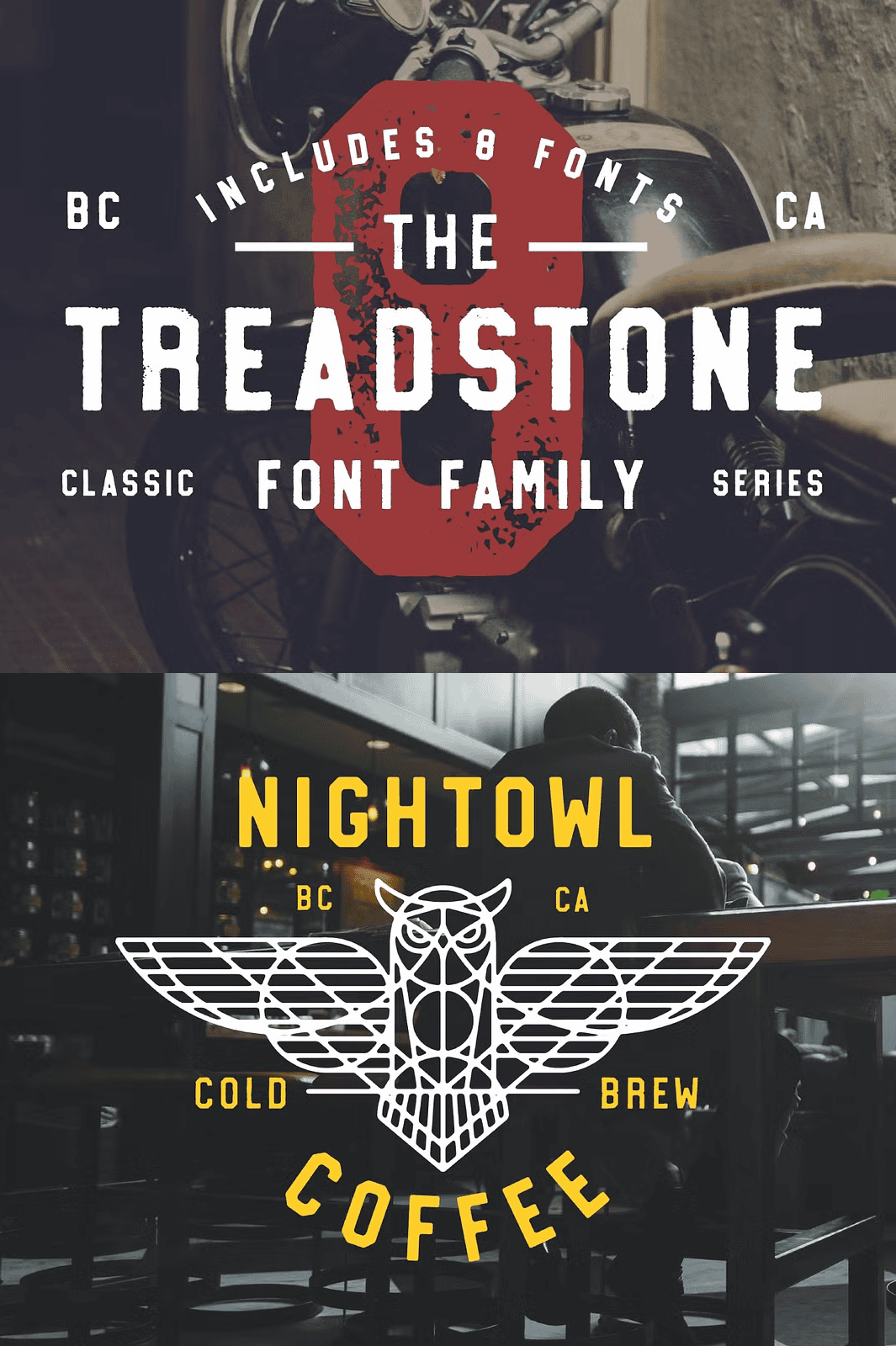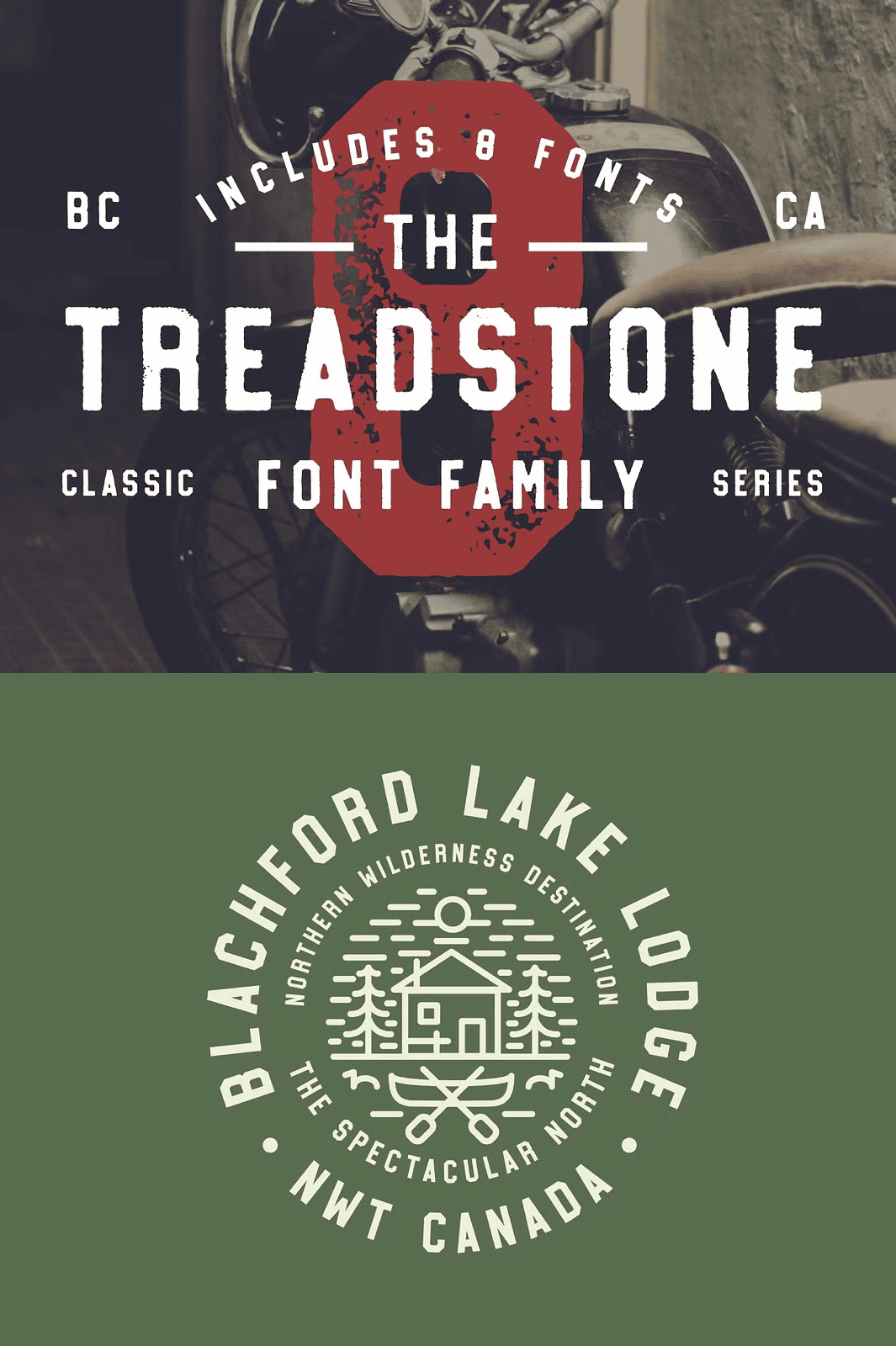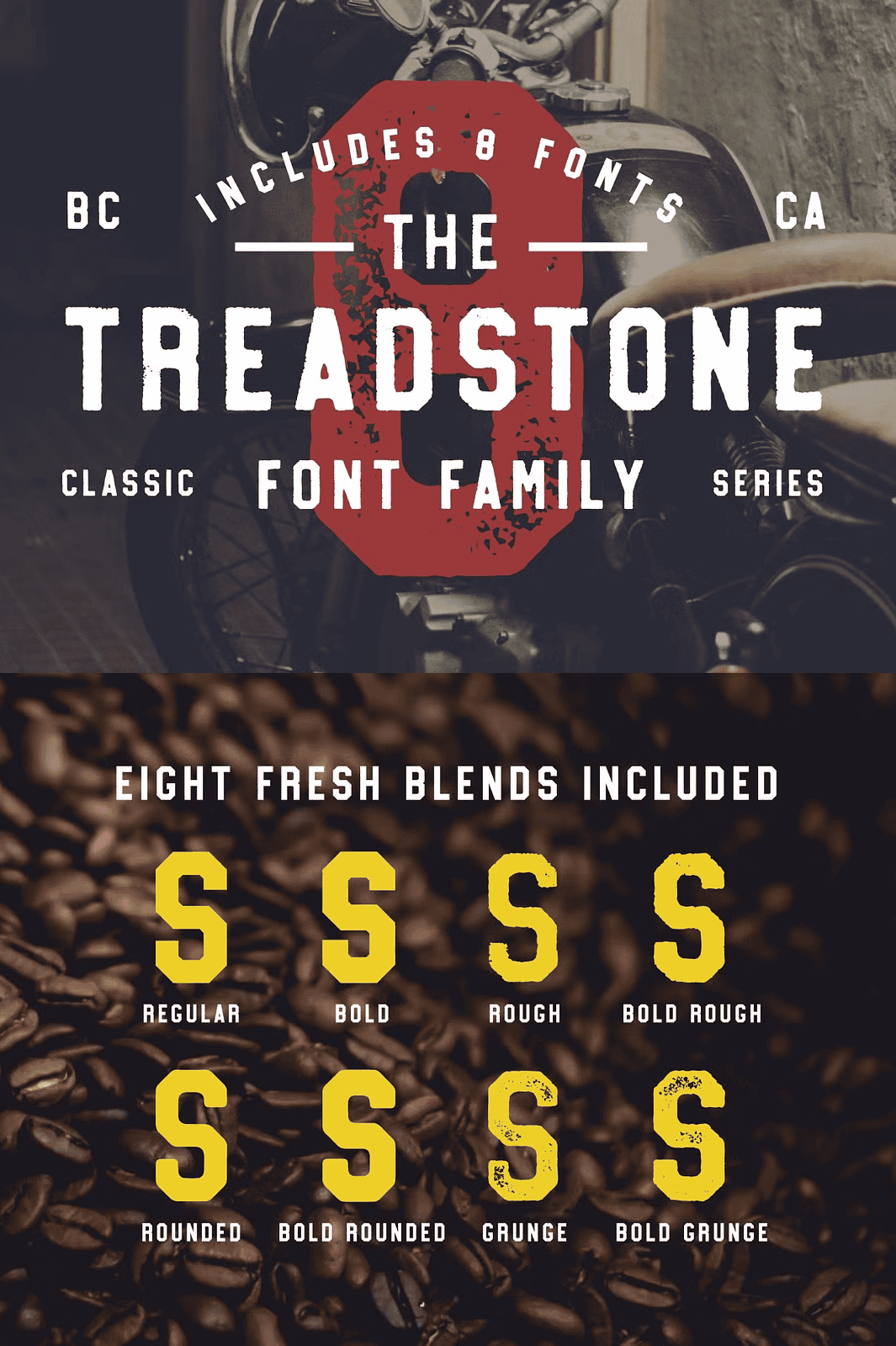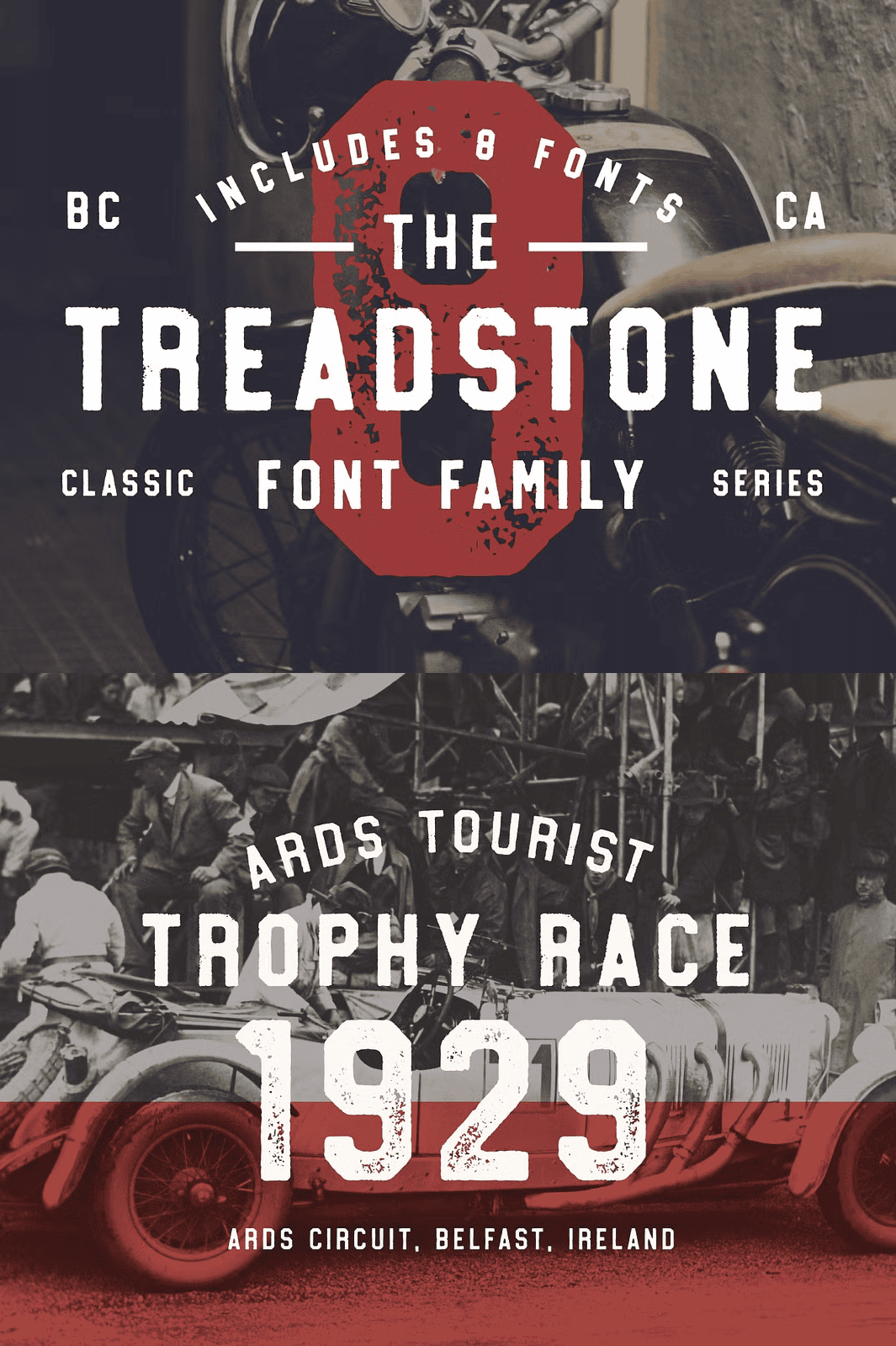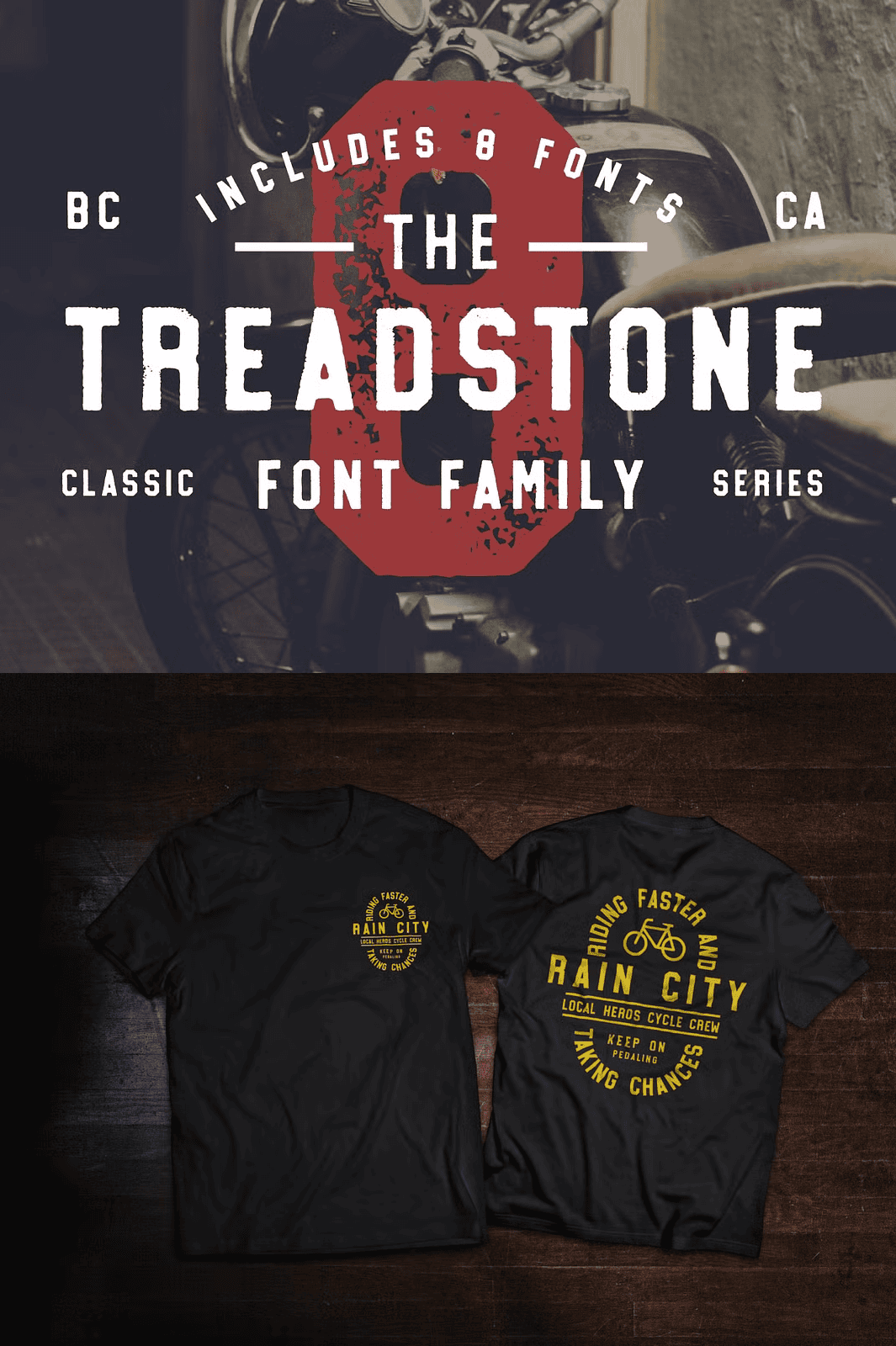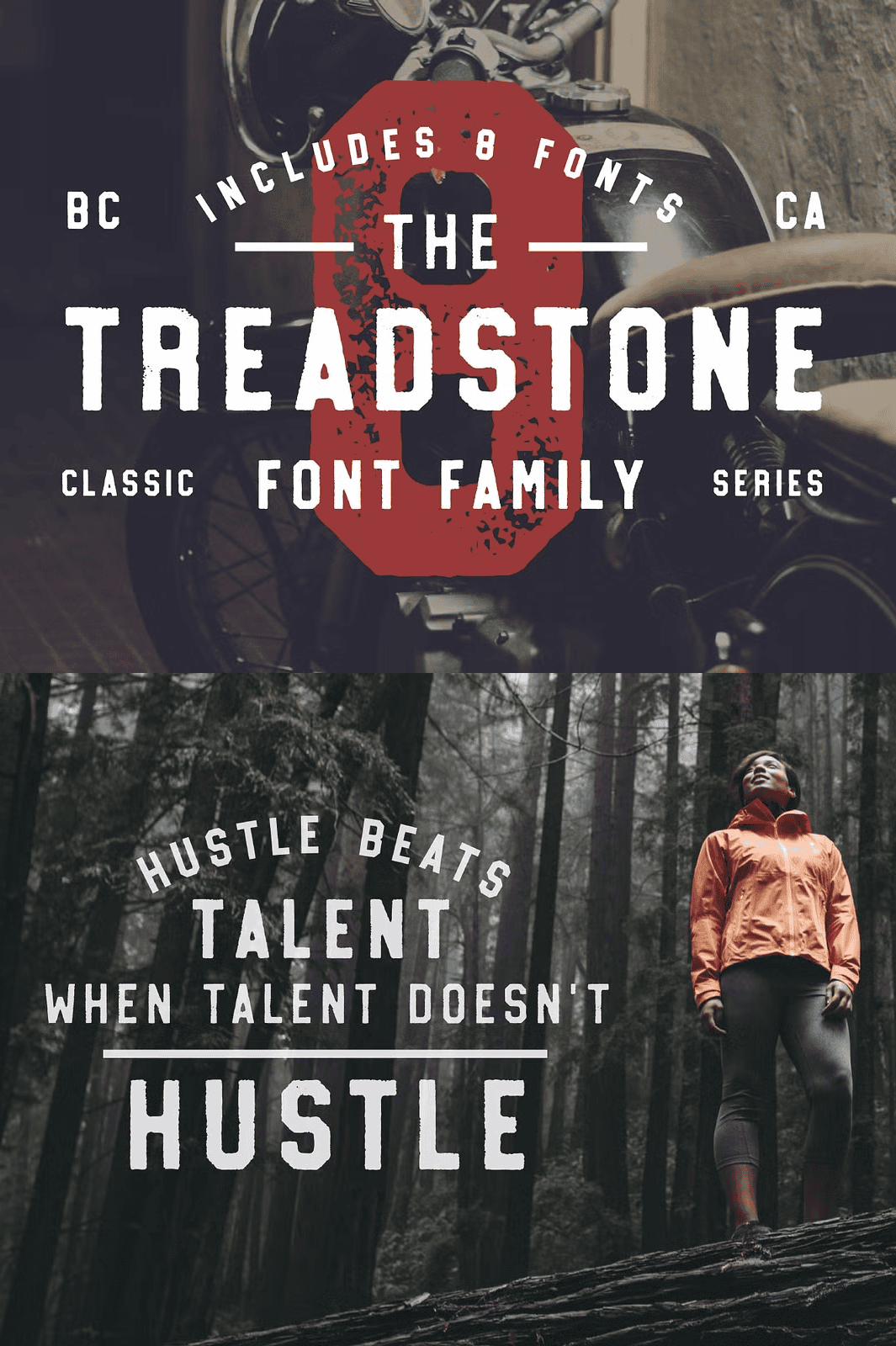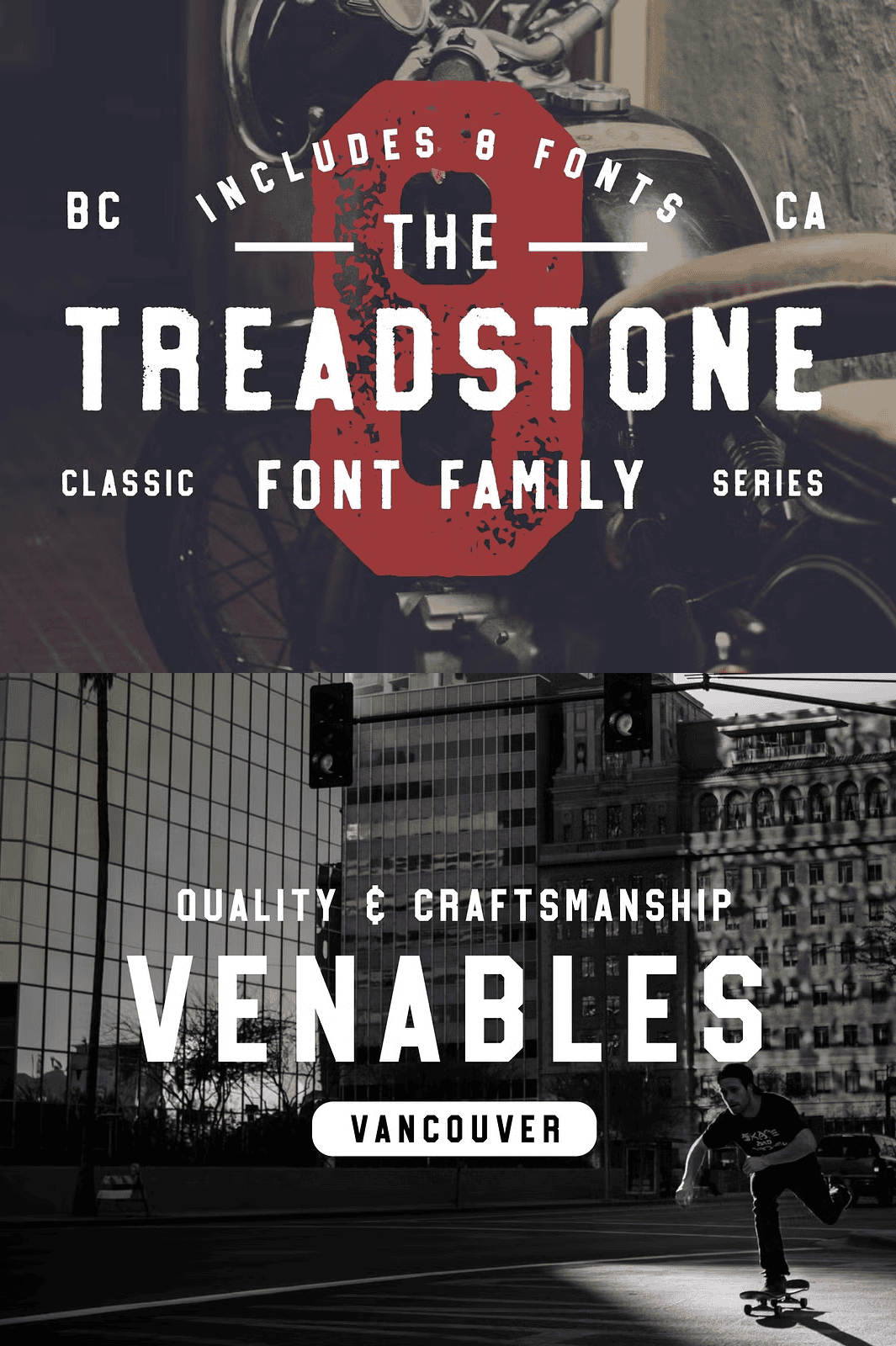
Dominate Visuals with a Bold, Modern Take on Timeless Typography
Elevate your creative projects with **Treadstone**, a versatile and striking font family that redefines modern classic design. Engineered for impact, this 8-style collection delivers unmatched flexibility and character, blending the strength of traditional typography with sleek, contemporary flair. Whether you’re crafting bold headlines, designing powerful logos, or building immersive brand identities, Treadstone gives you the tools to stand out. Its distinct styles—each with unique personality and visual power—allow you to match the exact mood and message of your design. Choose precision, grit, or organic warmth. With Treadstone, your typography does more than communicate—it commands attention.
Explore the Full Treadstone Family: 8 Styles, Infinite Possibilities
Treadstone isn’t just one font—it’s an entire family built for creative control. Every variant is thoughtfully designed to serve a unique purpose:
– **Treadstone Regular** – The timeless foundation. Sharp edges, balanced weight, and meticulous spacing make this the go-to for clean, professional branding, minimalist layouts, and high-precision design.
– **Treadstone Rounded** – Softer, more organic, and naturally approachable. Its slightly thicker profile and imperfect curves feel human-made, adding warmth without losing clarity—ideal for stacking with sharper fonts.
– **Treadstone Rough** – Infused with raw character, this version is slightly thinner but packed with texture. Perfect for vintage posters, editorial work, and designs that need a rugged, hand-crafted edge.
– **Treadstone Grunge** – Unleash the grit. This high-detail version delivers a thick, weathered, letterpress-style feel—ideal for edgy branding, punk-inspired design, or anything that needs a sense of authenticity and decay.
– **Treadstone Bold** – A louder, more dominant presence. Perfect for impactful headlines, section headers, and dynamic digital displays. Pairs flawlessly as a subheader with Regular for strong typographic hierarchy.
– **Treadstone Bold Rounded** – The heavyweight favorite. Thickest in the family, this style dominates visual space without overwhelming. Designed to grab attention instantly—ideal for social media, banners, and large-format print.
– **Treadstone Bold Rough** – The balanced heavy hitter. Slightly thinner than Bold, it blends power with texture. Its worn edges give it a letterpress-like charm, making it perfect for vintage branding and editorial typography.
– **Treadstone Bold Grunge** – Maximum impact. Loud, detailed, and fiercely textured. Built for projects where you want to scream your message—perfect for music branding, gaming, and extreme design statements.
Design with Confidence Across Languages and Platforms
Treadstone was built for global creativity. With **full multilingual support**, it handles French, Spanish, English, Catalan, Galician, Basque, Portuguese, Italian, Albanian, Afrikaans, Dutch, German, Danish, Swedish, Norwegian, Finnish, Faroese, Icelandic, Irish, and Scottish—ensuring your message remains sharp and stylish, no matter the audience. Whether you’re localizing a brand campaign or designing for an international audience, Treadstone maintains typographic integrity across languages and scripts.
Bring Your Vision to Life Across Every Medium
Treadstone is engineered for real-world performance across diverse applications:
– 🏷️ **Logo & Brand Identity**: Create instantly recognizable mark-making with bold, scalable type that scales from business cards to billboards.
– 🖼️ **Headlines & Display Typography**: Use Bold and Bold Grunge versions to make digital and print headlines impossible to ignore.
– 📰 **Editorial & Zine Design**: Mix Regular, Rough, and Grunge styles to add rhythm, contrast, and narrative depth.
– 🛍️ **Merchandise & Product Packaging**: Print striking slogans on apparel, drink cans, and packaging with authentic, high-impact lettering that stands out on shelves.
– 🎮 **Gaming & Music Branding**: Deliver the grit and energy needed for game titles, concert posters, and album art.
– 💬 **Social Media & Digital Campaigns**: Use dynamic styles to create scroll-stopping content and visually branded stories.
– ✅ **High-Quality Glyphs & Ligatures**: Enhanced character sets for professional-level typography
Why settle for a single font when you can wield an entire arsenal? With Treadstone, you’re not just selecting a typeface—you’re choosing a full creative system. It’s built for designers who demand versatility, precision, and visual strength. From sleek minimalism to gritty authenticity, Treadstone gives you control, confidence, and character.
Stop designing with limitations. Start creating with power.